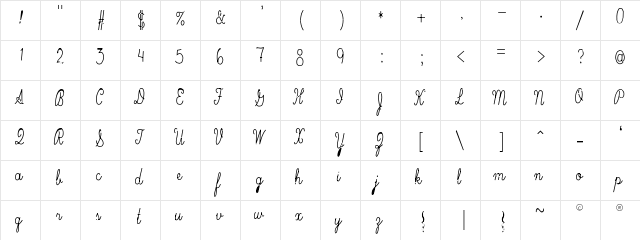
CryptScript Regular
Design Context for CryptScript Typeface
CryptScript brings a calligraphic fluidity to the page — its connecting strokes and expressive curves give it an unmistakably human quality.
Font Pairing: Combine CryptScript with a simple geometric sans for maximum contrast — the tension between flowing curves and clean structure is a classic typographic pairing.
Pro Tip: Pair CryptScript with a clean sans-serif for supporting text. The contrast between fluid script and geometric structure creates an elegant typographic hierarchy.